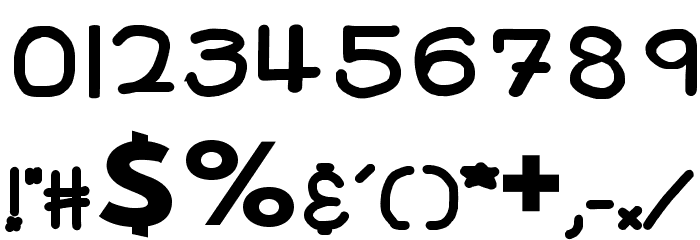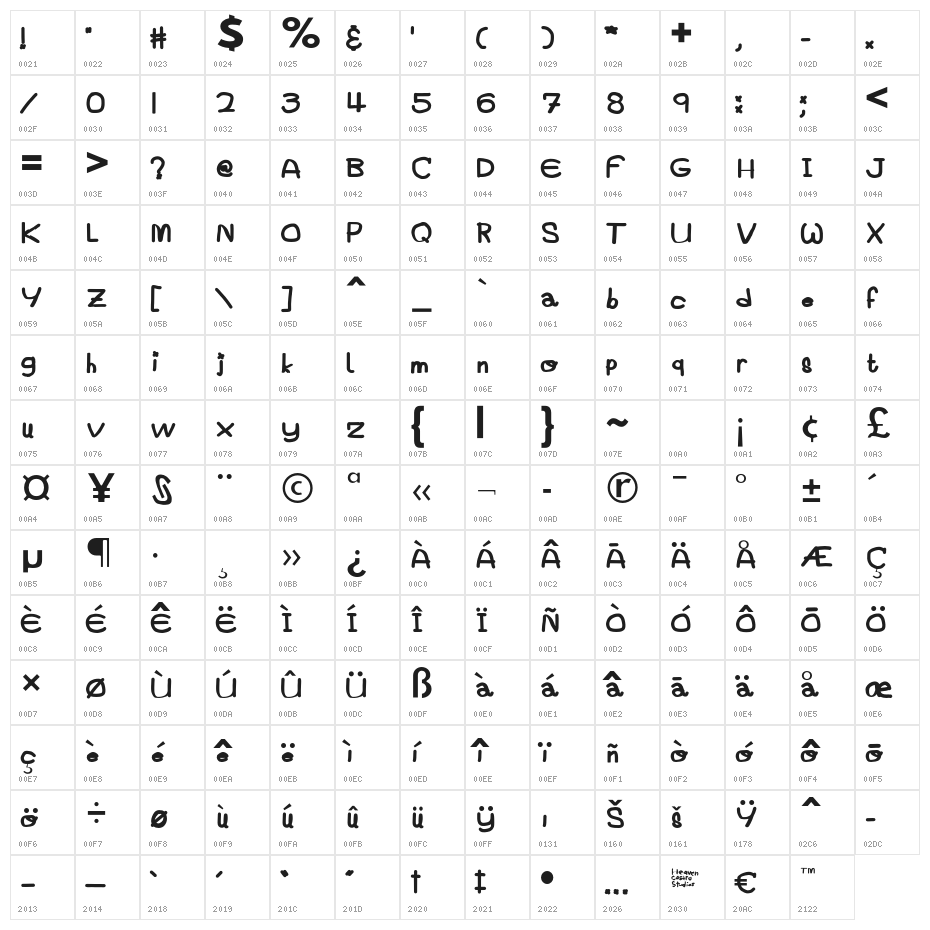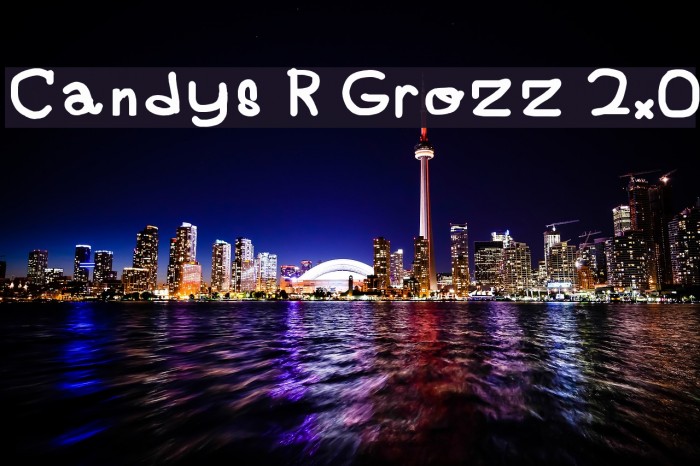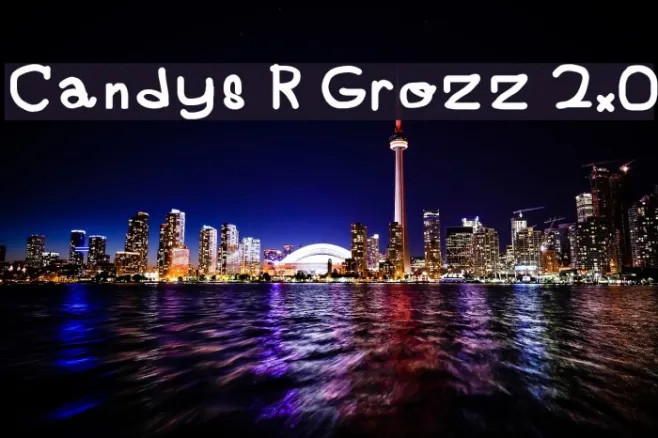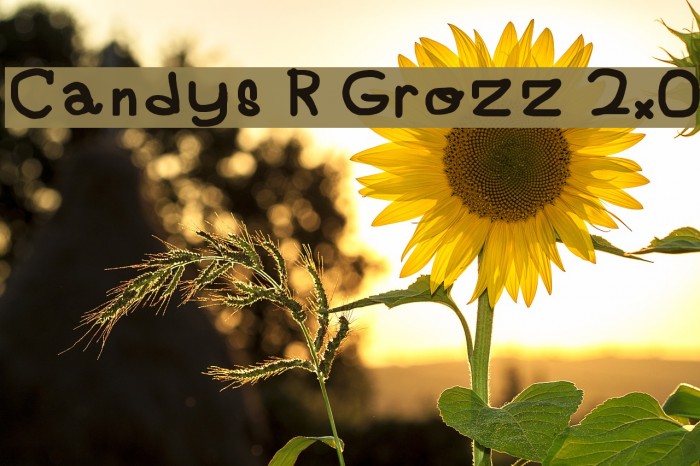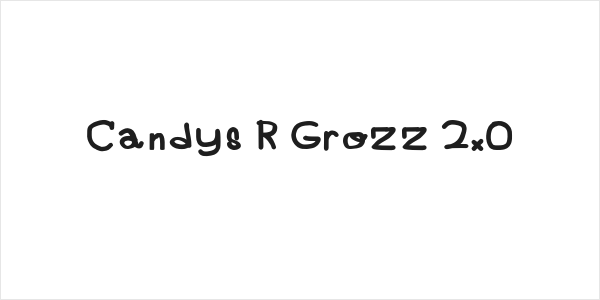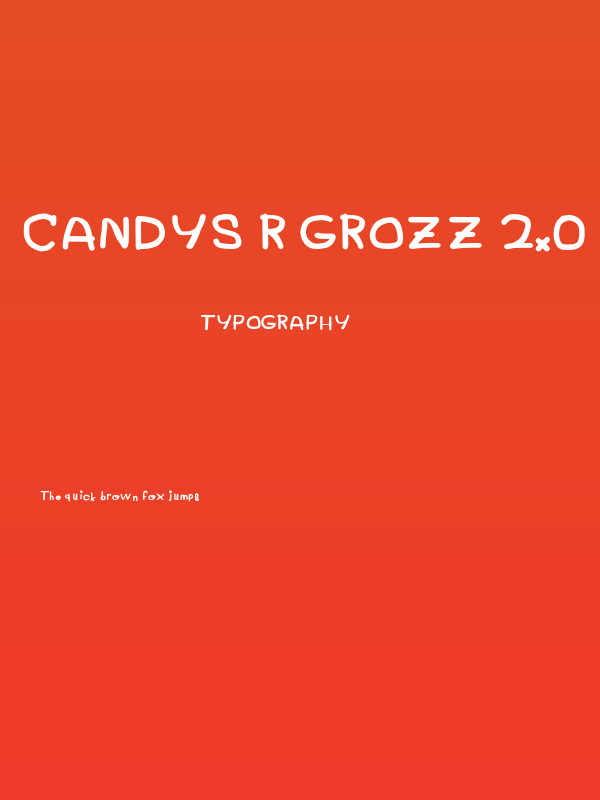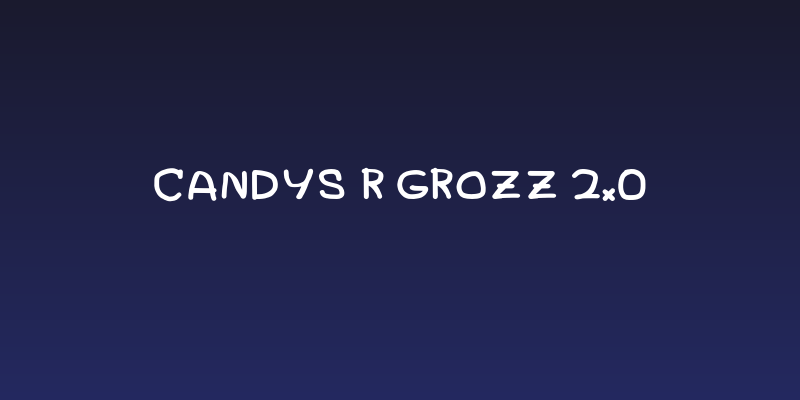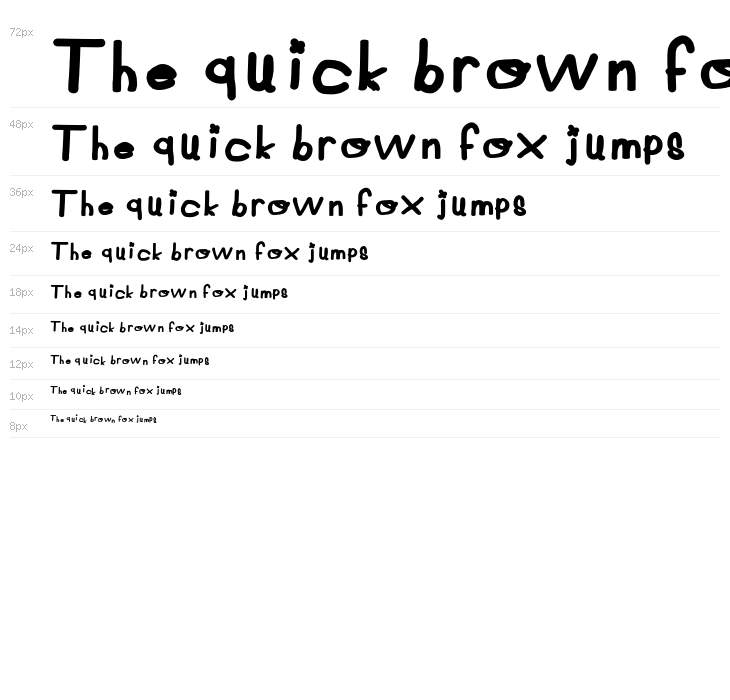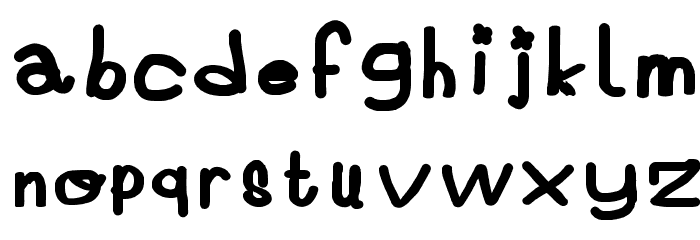
Candys R Grozz 2.0 Font
Candys R Grozz 2.0 Description
This playful and whimsical font features a unique, hand-drawn style with irregular, rounded edges and a casual, informal appearance. The characters are bold and slightly uneven, giving them a fun and quirky personality. The uppercase and lowercase letters maintain a consistent style, with a slight tilt and varying stroke thickness that adds to the font's charm. Numbers and special characters are equally distinctive, making this font suitable for creative and lighthearted projects.